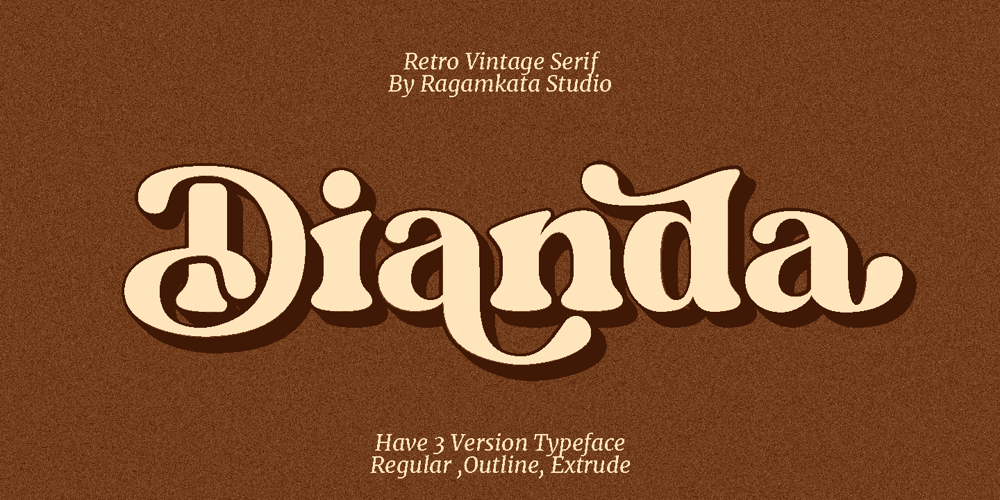
Dianda Font Family was designed by Yogiswhara Dio Prakoso Riadi and published by RagamKata. Dianda contains 3 styles and family package options. Hello, new retro serif called Dianda!Dianda is a stylish font that is both retro and bold font. Works great for logos, magazine, social media. It come with a unique lower and uppercase plus numbers, punctuation & multilingual letters, alternates and ligatures.